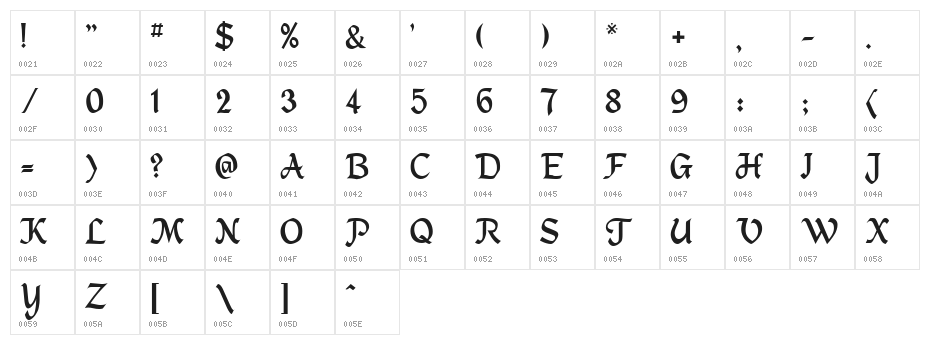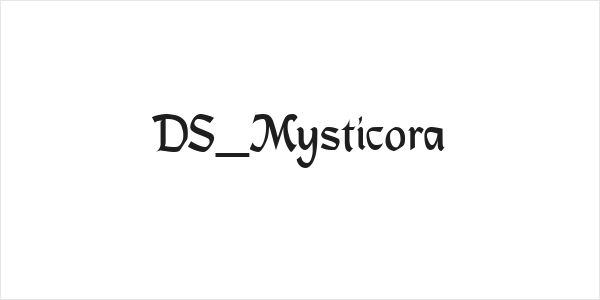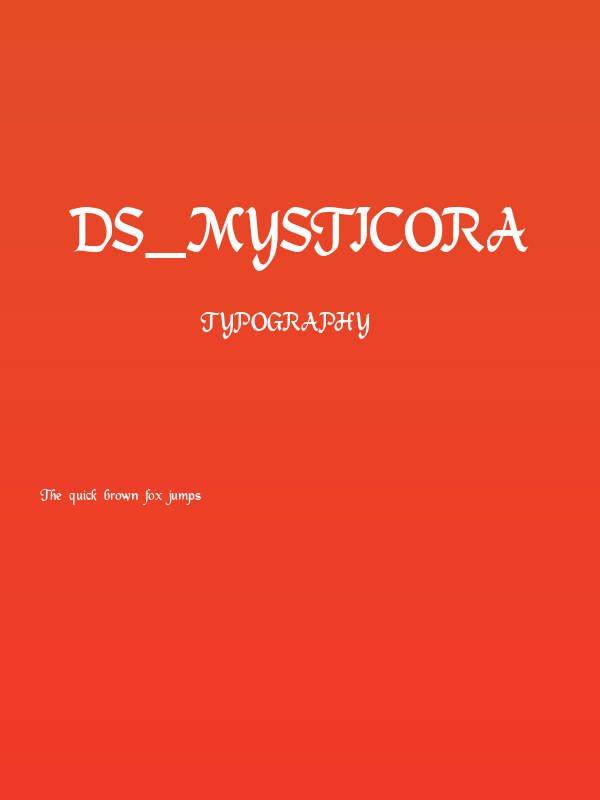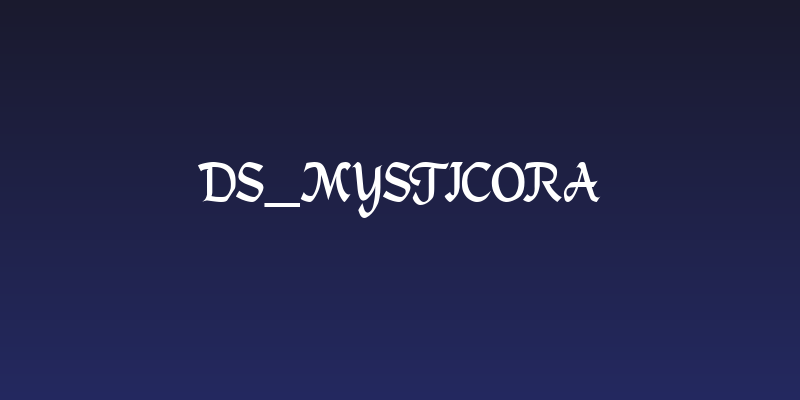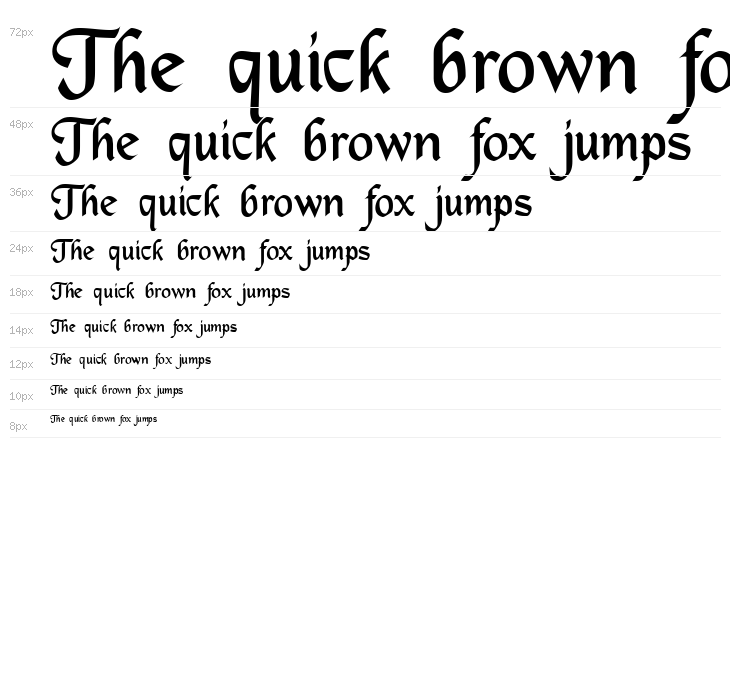
DS_Mysticora Font
DS_Mysticora Description
This font features a distinct, medieval-inspired design with sharp, angular edges and a bold presence. The uppercase letters are characterized by their dramatic curves and pointed serifs, giving them a regal and authoritative appearance. The lowercase letters maintain a consistent style, with unique flourishes that add to the font's overall mystique. Numbers and special characters are crafted with the same attention to detail, ensuring a cohesive look across all elements. This font's intricate design makes it suitable for projects that require a touch of elegance and historical flair.
| Proposed Projects | Ideal for fantasy book covers, historical event posters, themed invitations, and branding for medieval-themed businesses. |